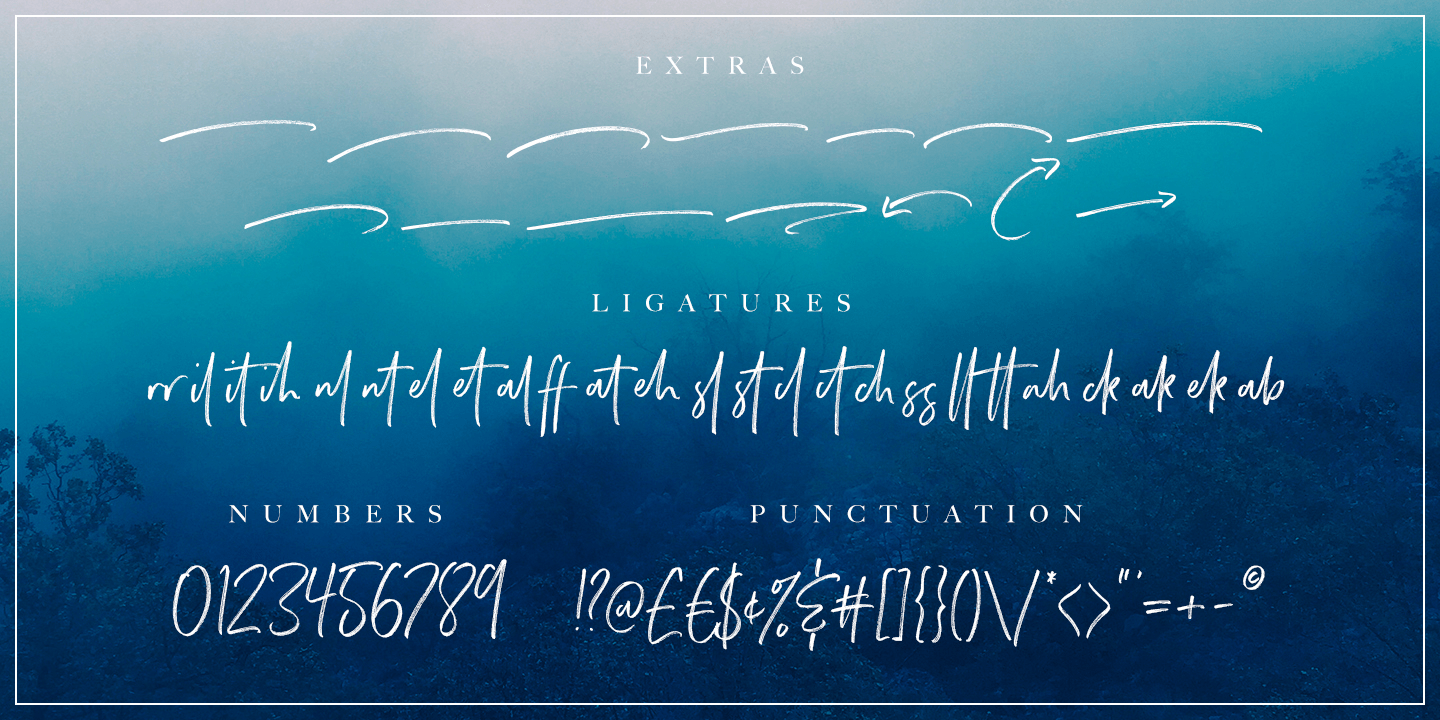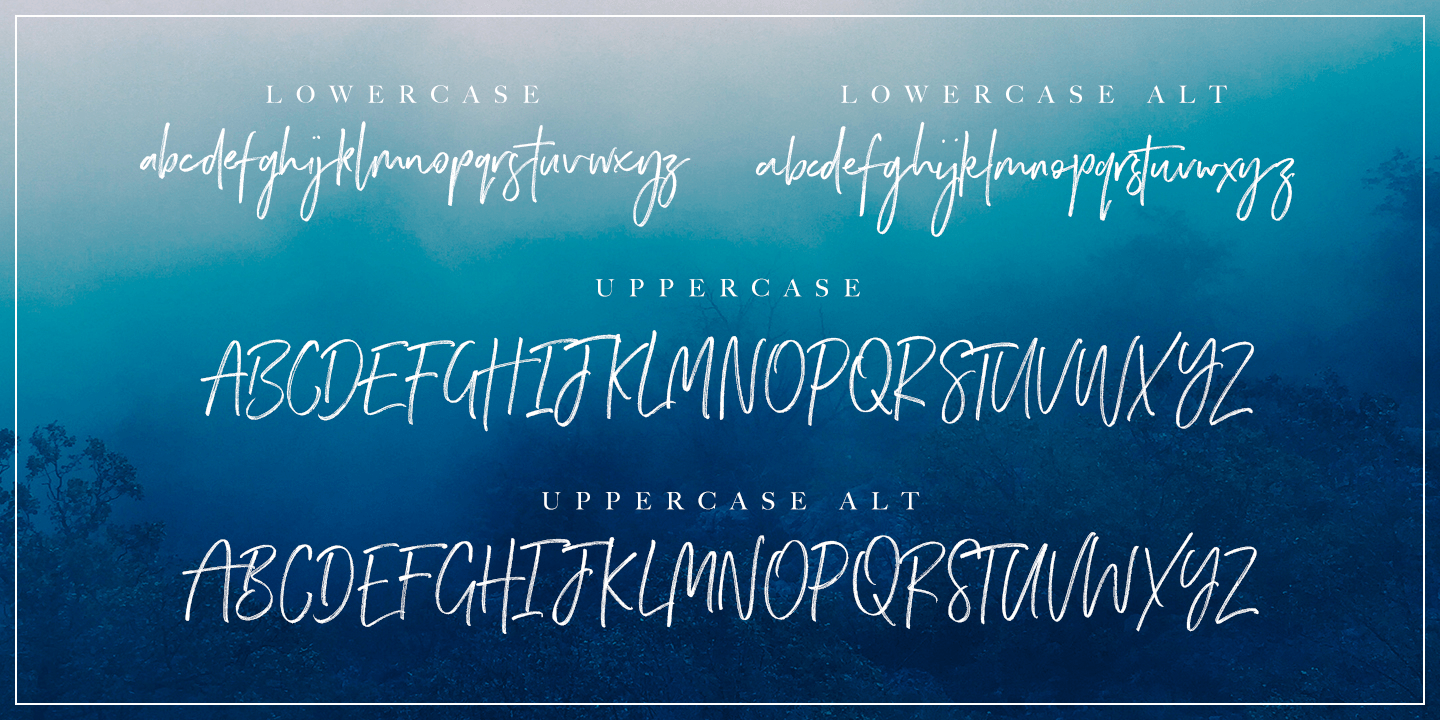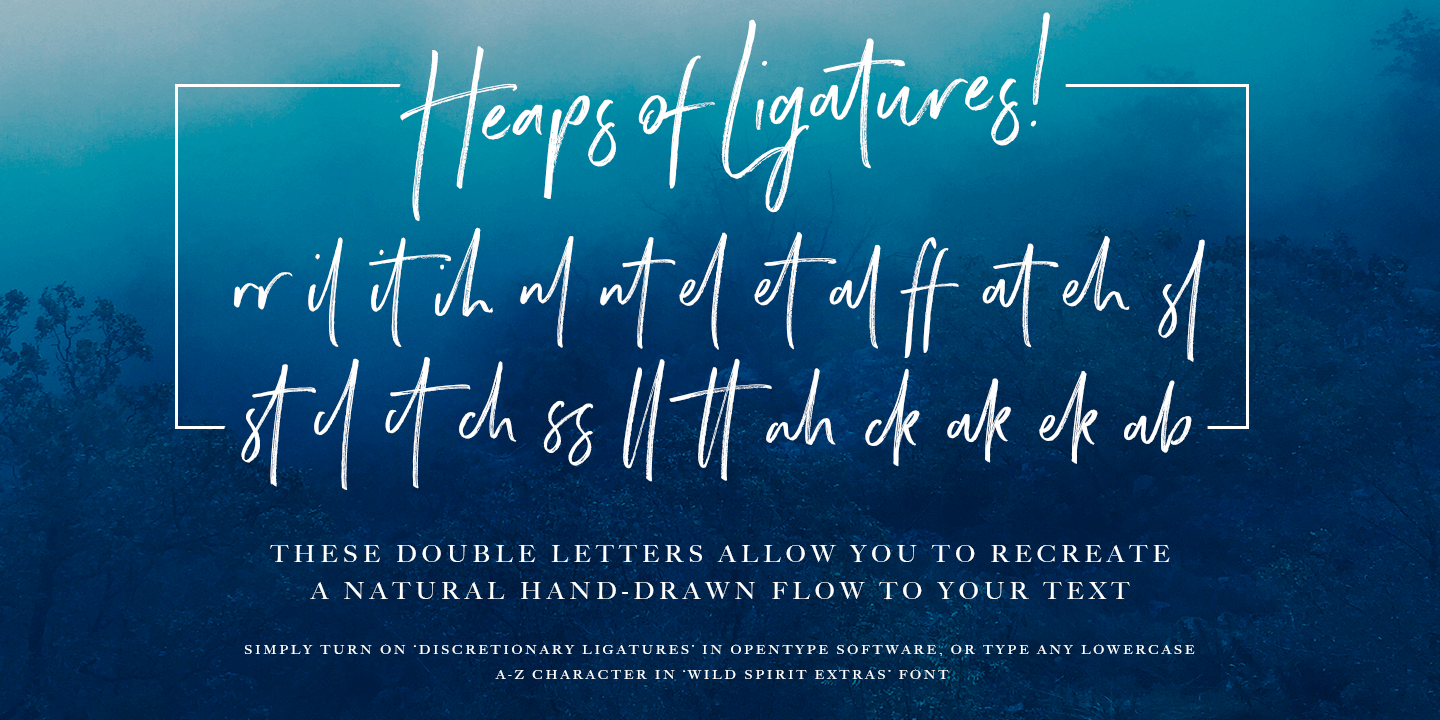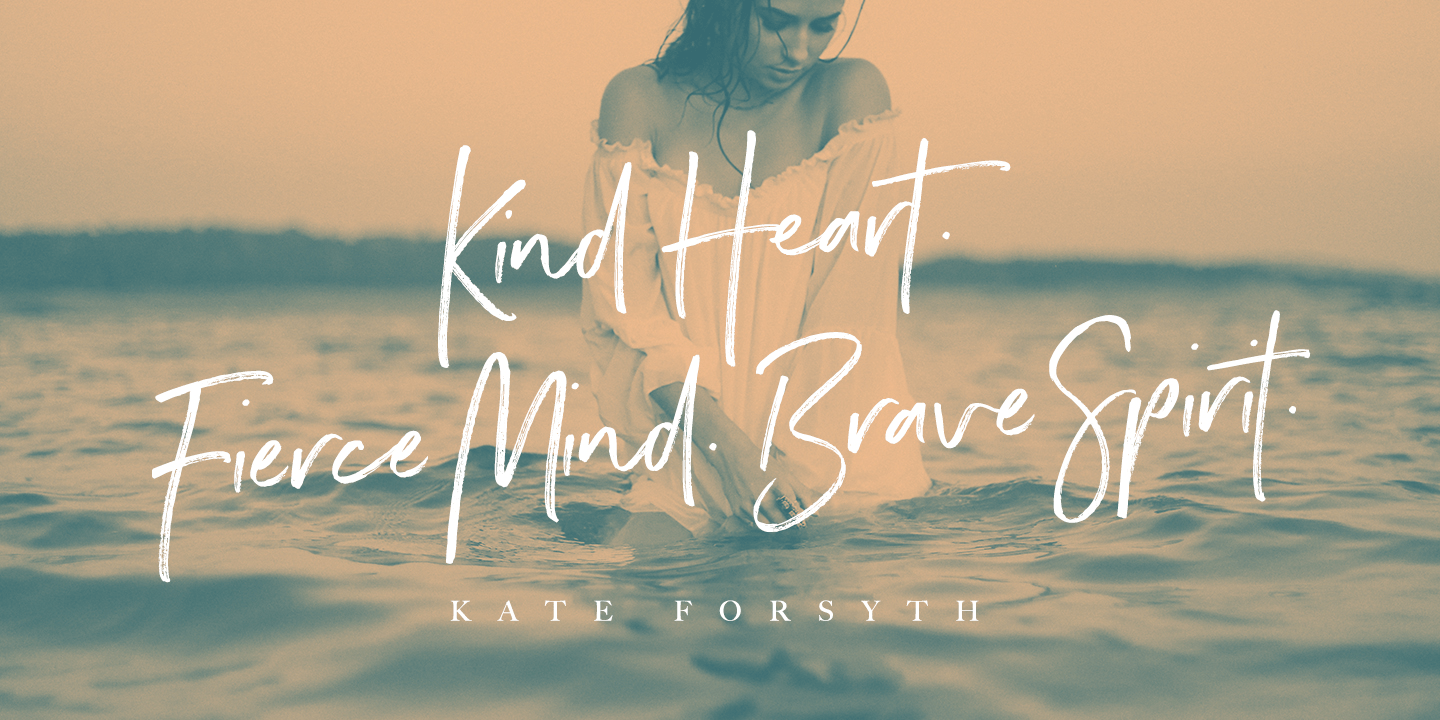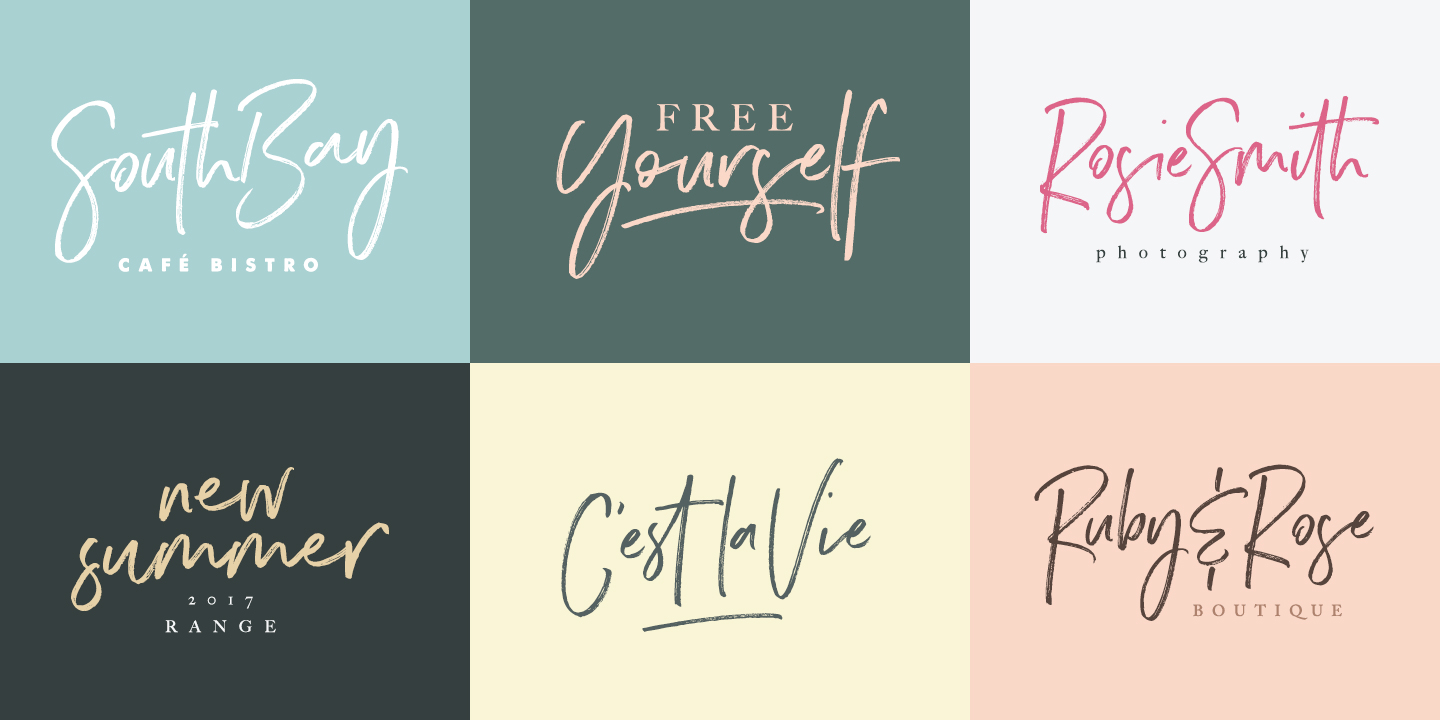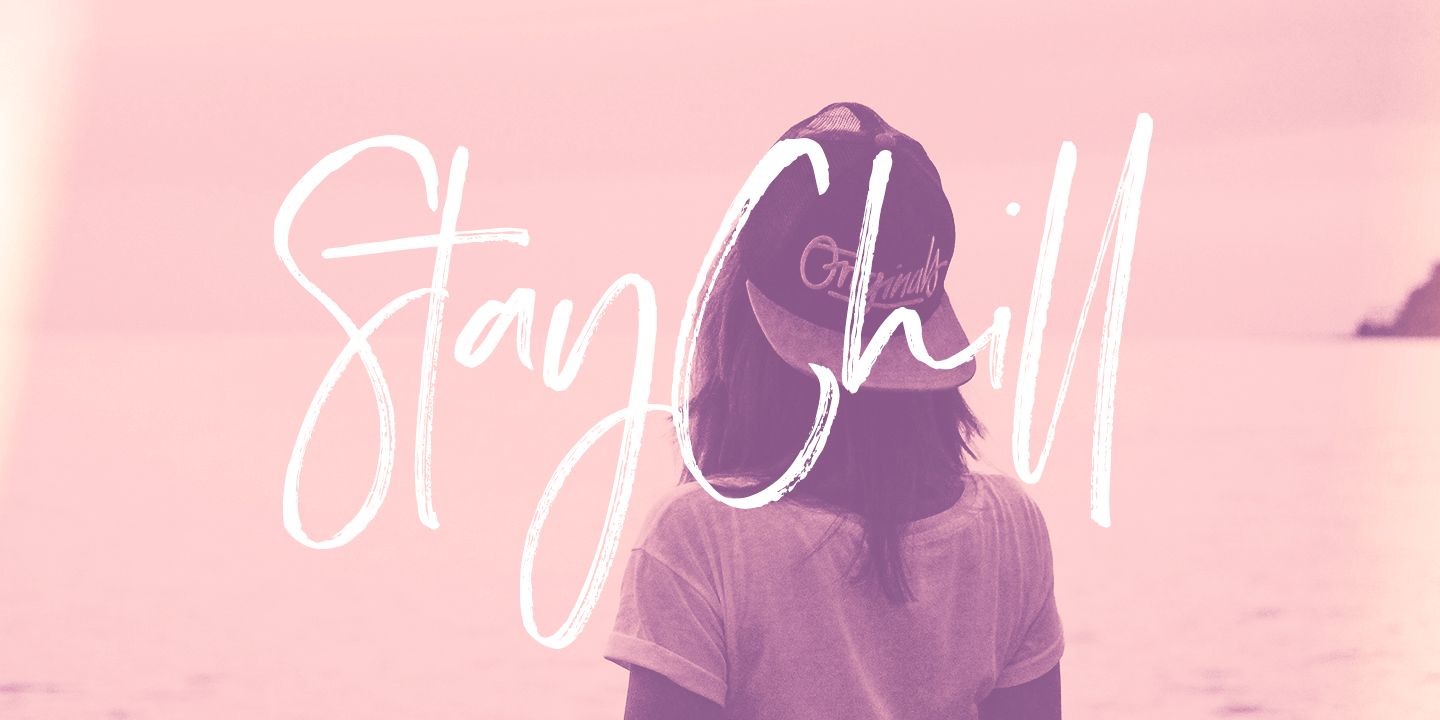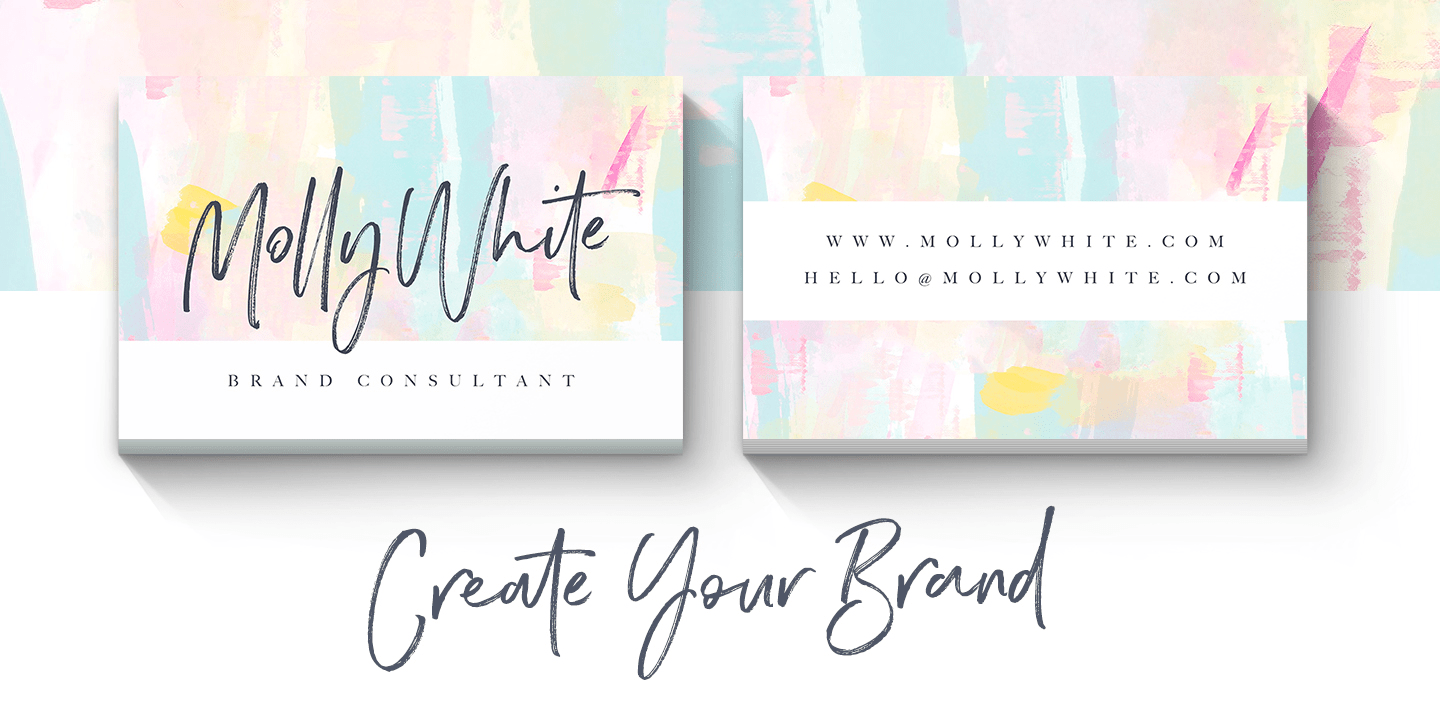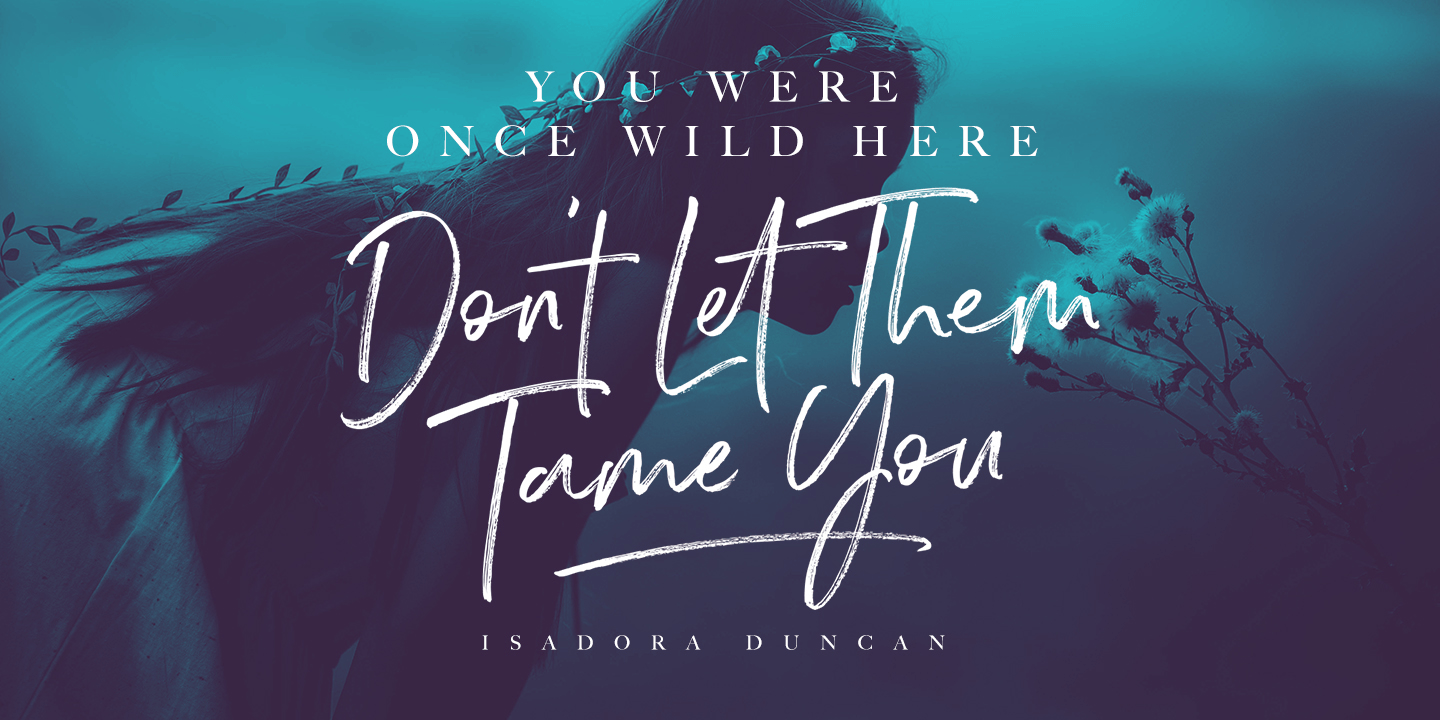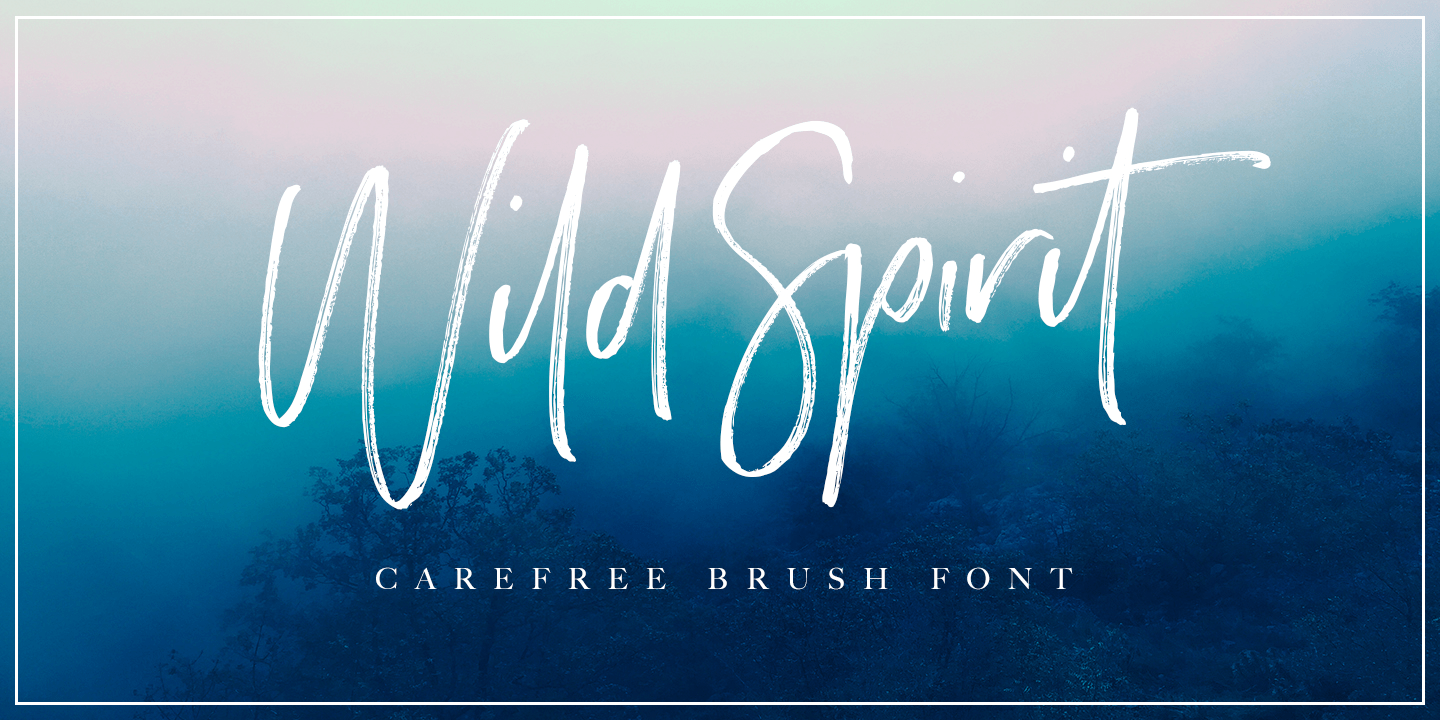
Wild Spirit
Font Family by Set Sail Studios
Introducing: Wild Spirit! A carefree and untamed brush font with a natural flow. Handmade with long organic strokes, Wild Spirit isn't held back by any boundaries or expectations. It's the perfect choice for personal branding projects, handwritten quotes, homeware designs, product packaging - or simply as a modern & stylish text overlay to any background image. Wild Spirit includes two sets of each character, and 25 ligatures (double letters) - which combined offers you a huge range of customisability and layout options, and allows you to produce a very organic and natural handwritten flow to your text. It also comes with a bonus set of 14 swashes & arrows to assist your project.